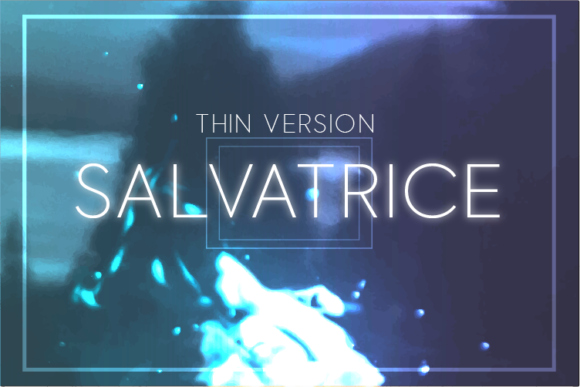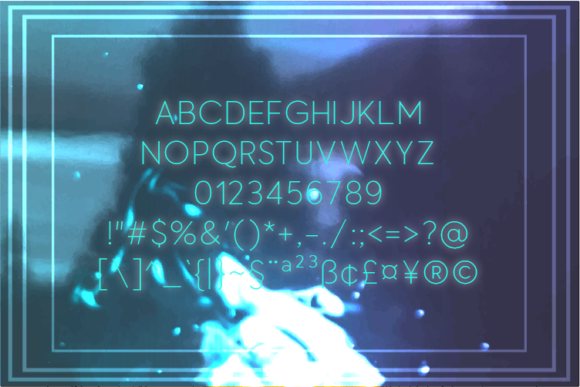
About Salvatrice Thin Font
Salvatrice Thin is a classy and elegant sans serif font. It’s a great choice for your new projects.
This font can be used in a wide variety of applications from logos, web design, magazine covers – the only limit is your imagination!